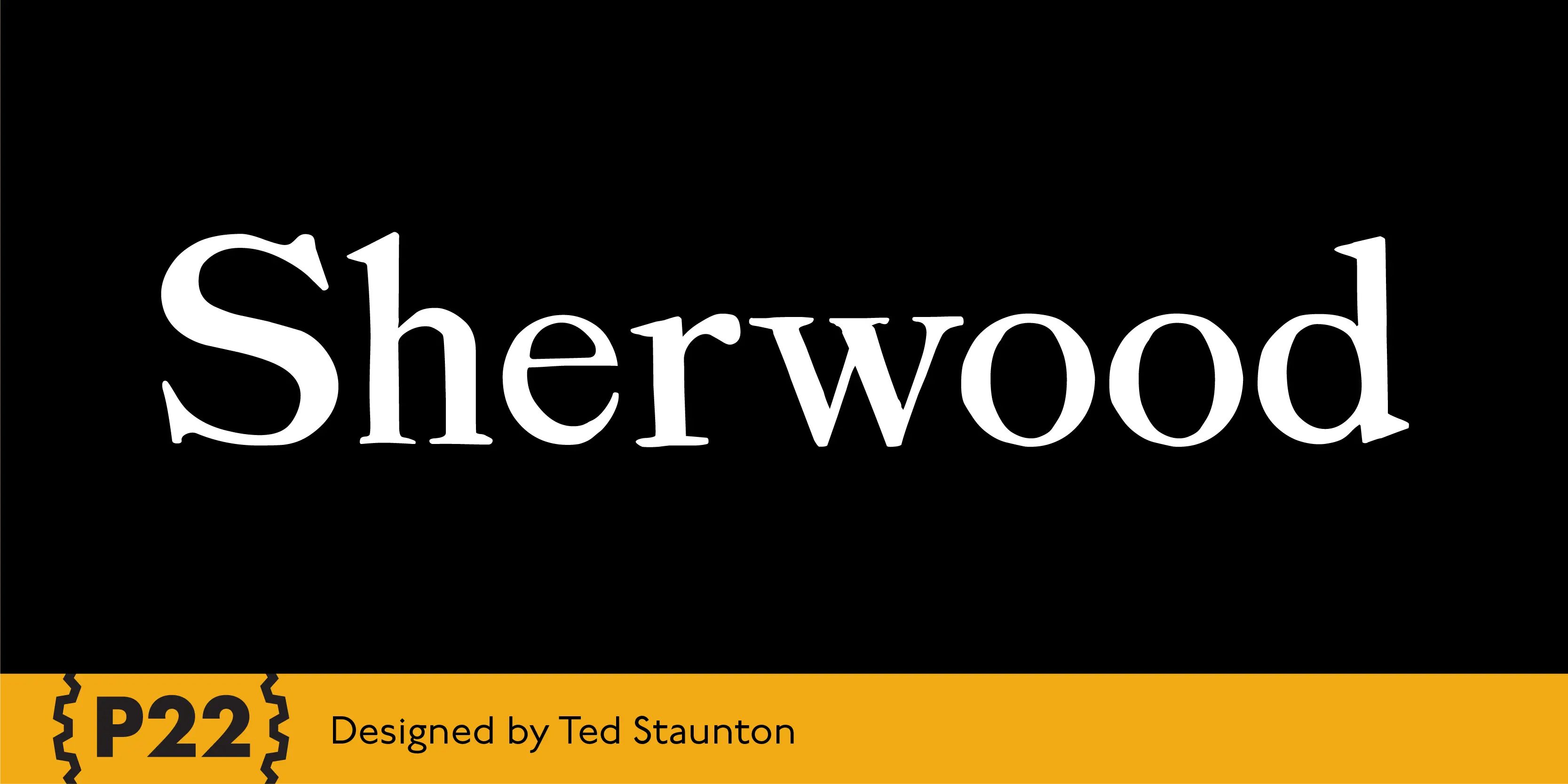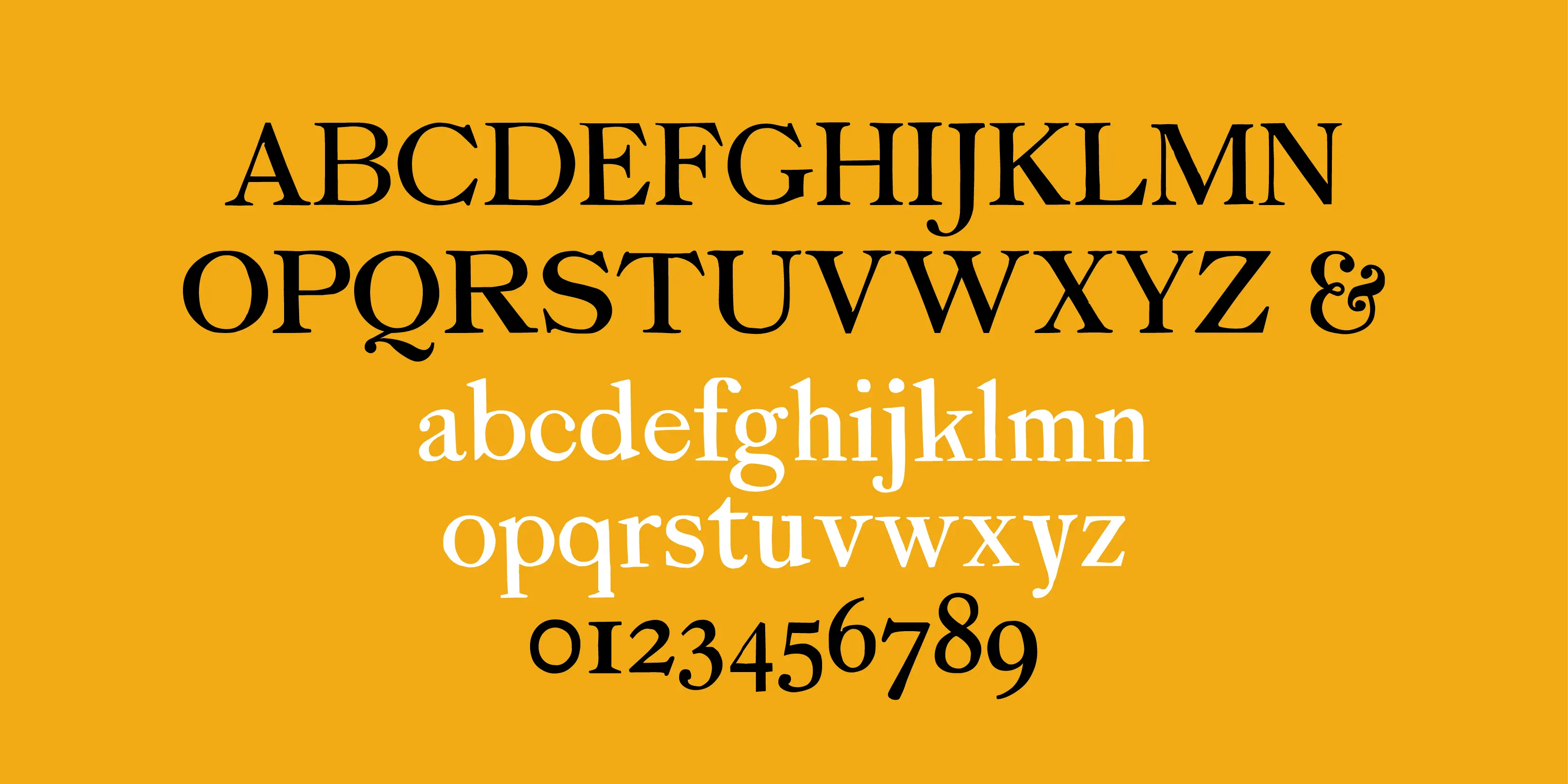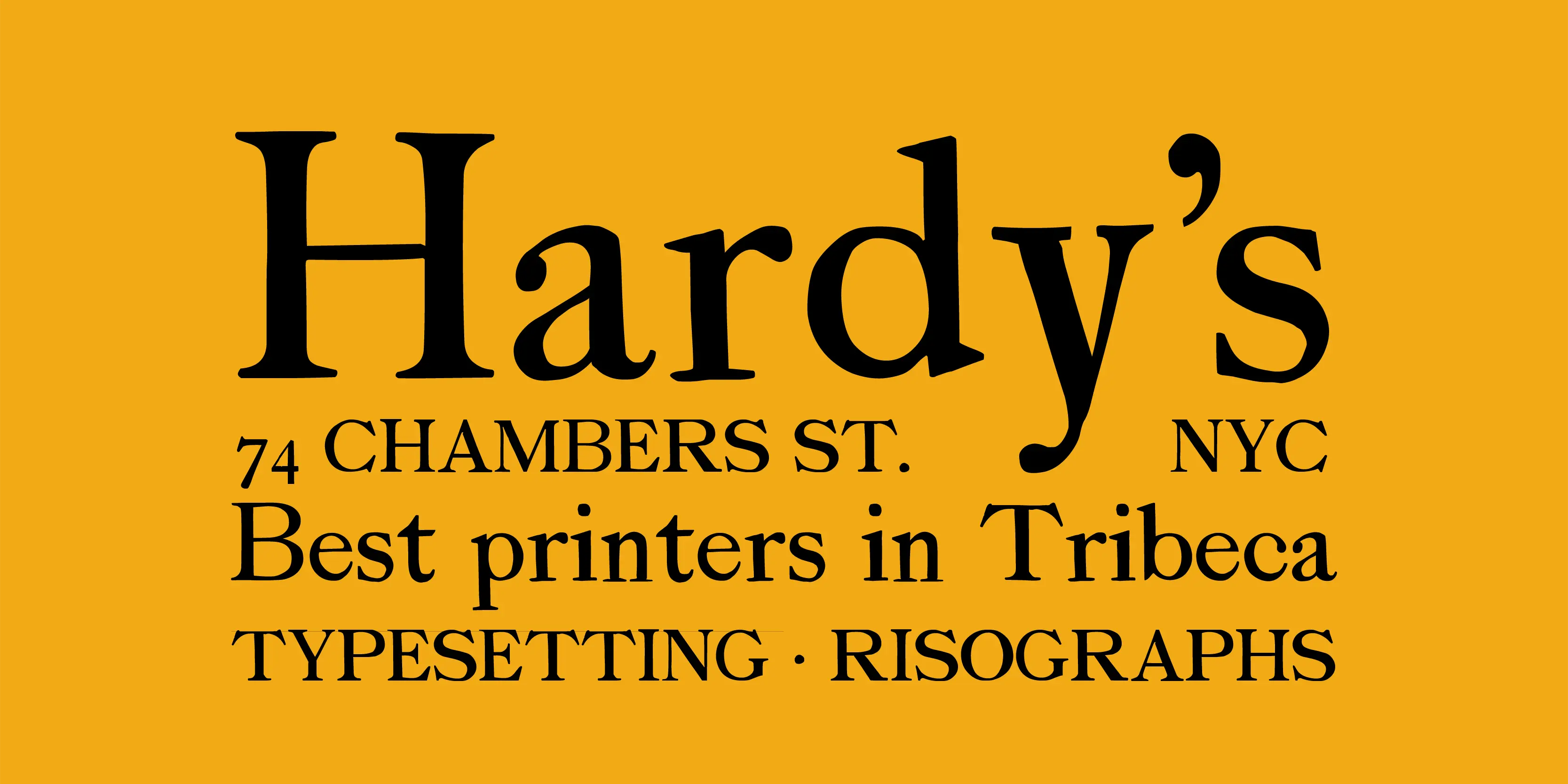
Sherwood Font
Sherwood
Sherwood is a reproduction of an unusually small wood type font from England, dating from the last years of the 18th century. Somewhat reminiscent of Caslon Old Face. The original wood type is used at Sherwood Letterpress and can be seen on the Sherwood home page.